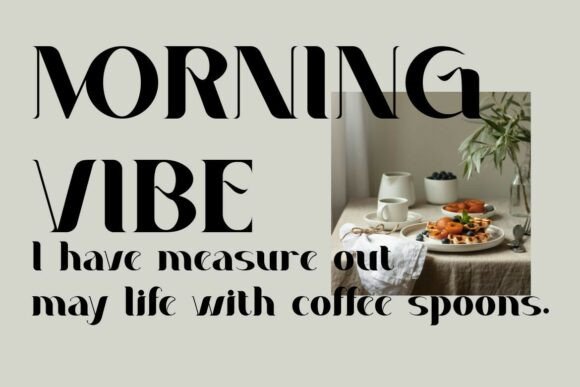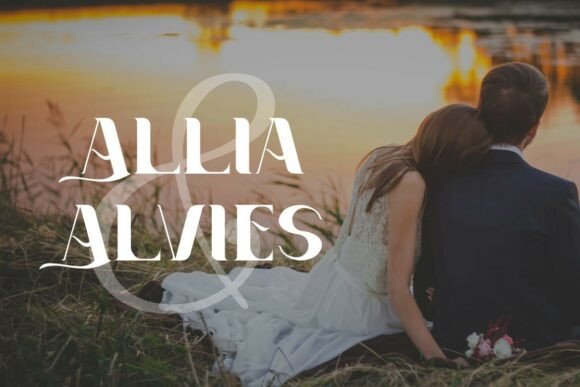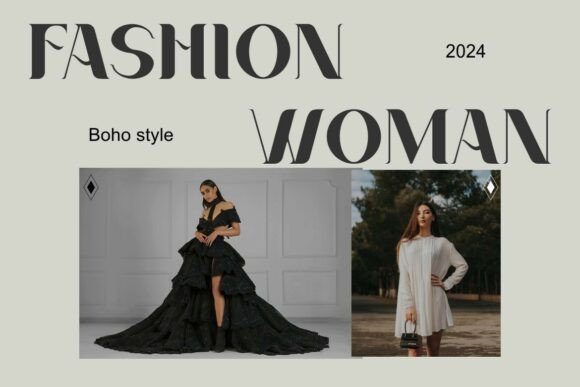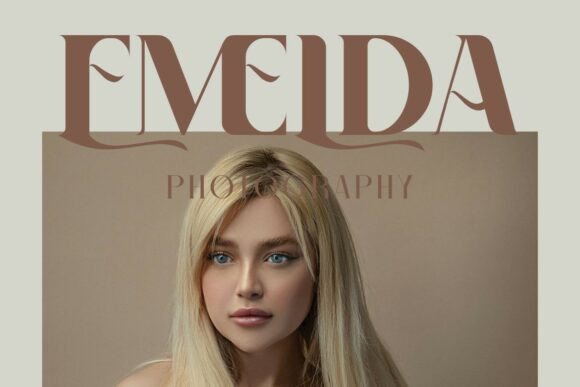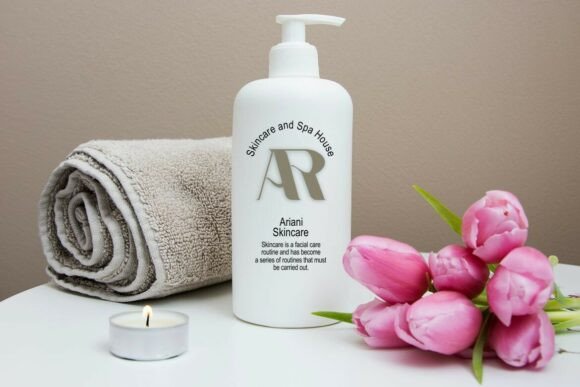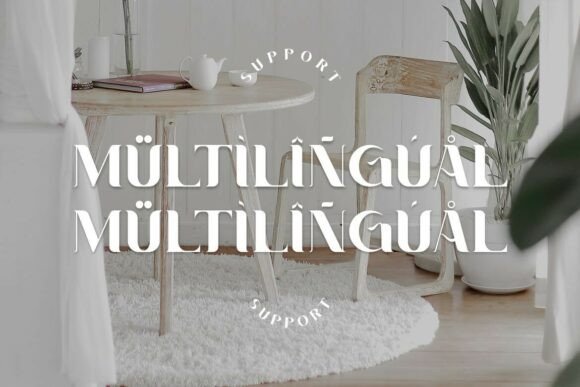
Introduction to Kathalia Font Font
Fonts play a crucial role in design, and the Kathalia Font font is a typeface that brings both character and versatility to any project. Whether you’re working on a branding project, a website, or a print design, the Kathalia Font font offers a unique style that can elevate your work.
Kathalia is a high-contrast, modern serif font that exudes luxury and high-fashion elegance.
It features a unique blend of thick, authoritative vertical strokes and delicate, hair-thin horizontals, punctuated by sharp, refined serifs The most striking characteristic is its artistic, fluid ligatures and deep, sweeping curves on certain letterforms, giving it a custom, boutique feel.
Key Features of Kathalia Font Font
Why Choose Kathalia Font Font?
The Kathalia Font font is more than just a typeface – it’s a design tool that helps you communicate your message with style and clarity. Its unique character set and versatile design make it suitable for a wide range of applications, from elegant invitations to bold headlines.
With its carefully crafted letterforms and balanced proportions, the Kathalia Font font ensures readability and visual appeal across all mediums.
What makes Kathalia Font font special?
The Kathalia Font font stands out with its unique design, exceptional readability, and versatility across various design applications.